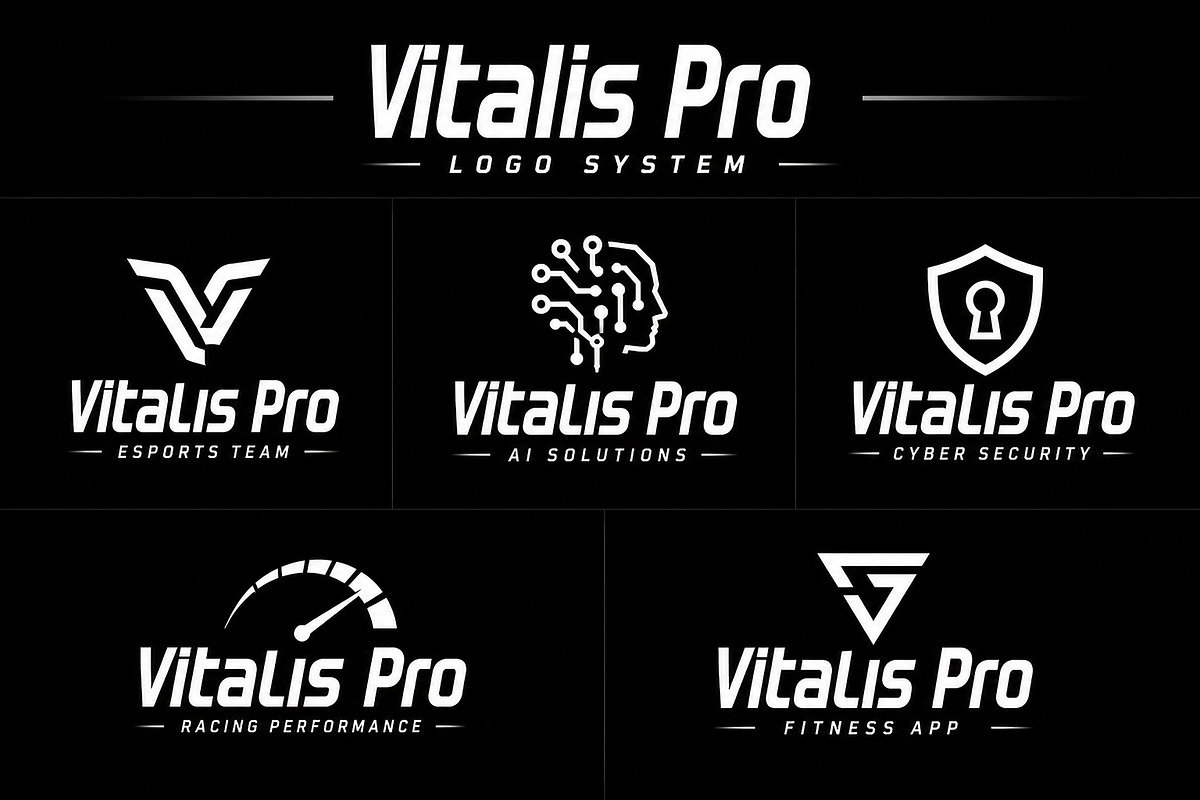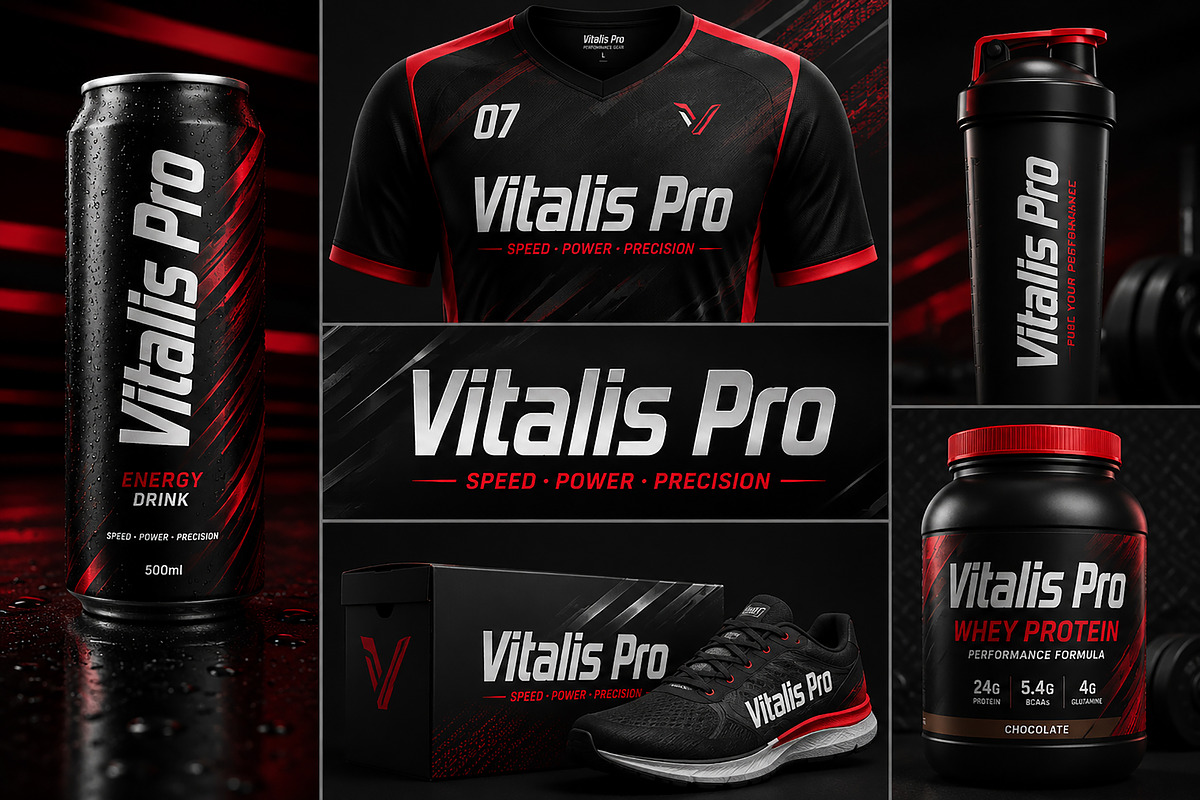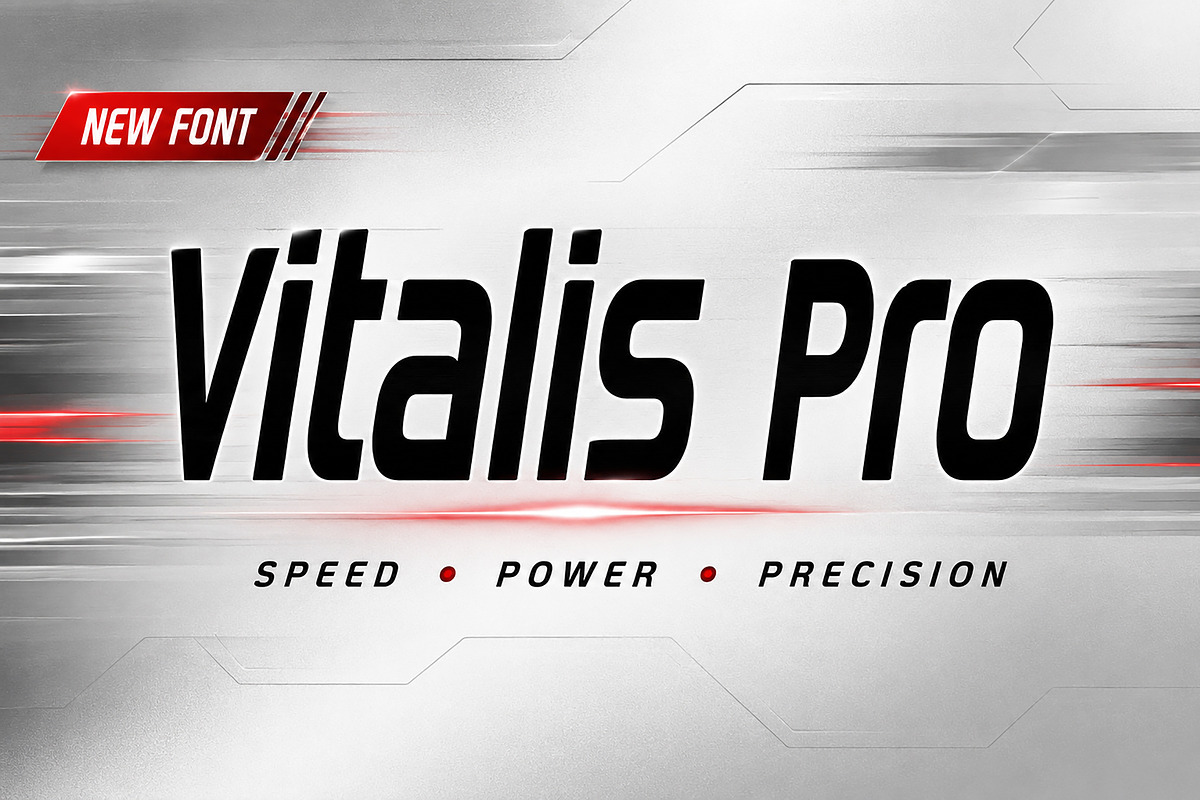
Vitalis Pro
Vitalis Pro is a bold, condensed display font built for speed, power, and performance. Designed with a futuristic athletic edge, this typeface delivers strong visual impact for sports branding, fitness campaigns, esports logos, racing designs, tech branding, and modern advertising.
Its sharp geometric cuts, dynamic slant, and aggressive structure make it perfect for projects that demand energy, motion, and confidence. Whether you're creating logos, product packaging, posters, social media content, or apparel branding, Vitalis Pro gives your design a powerful competitive look.
Perfect for designers who need a strong, fast, and professional typeface with high versatility.
Make your designs faster, stronger, and more powerful with Vitalis Pro.